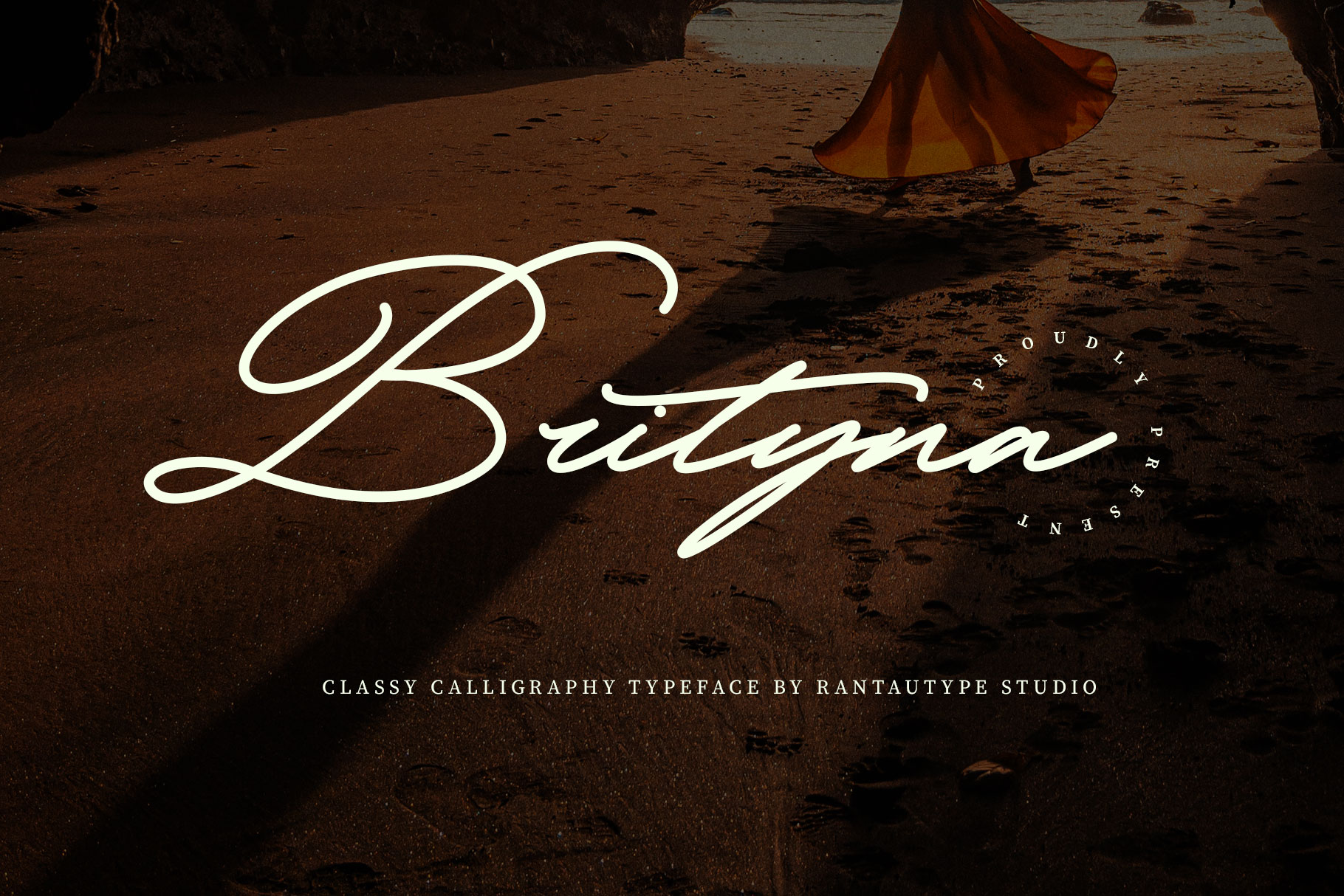
Brityna Calligraphy Font
Brityna is signature model with the but the uppercase we make it more calligraphy the new perfect combination. Brityna come with elegancy and stylish form to make luxury sense.
Brityna  is perfectly choice for any creative endeavor, chic, lifestyle design such as logos, title, watermark on photography, cover, branding, display and magazine, wedding event, corporate brand, quotes, album cover, business card, business project and many other design project with handwritten taste.